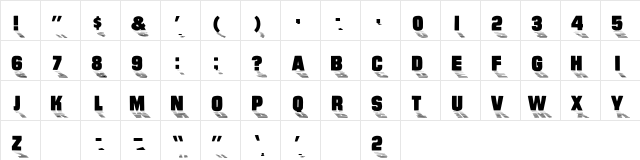
Wharmby Plain Plain
Design Context for Wharmby Plain Typeface
Wharmby Plain takes a measured approach to typography — its balanced proportions and neutral character make it a reliable workhorse for both digital and print work.